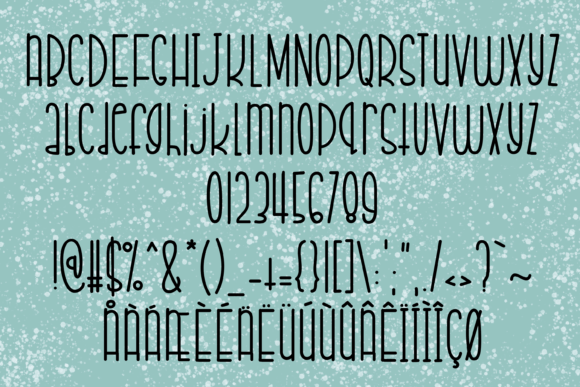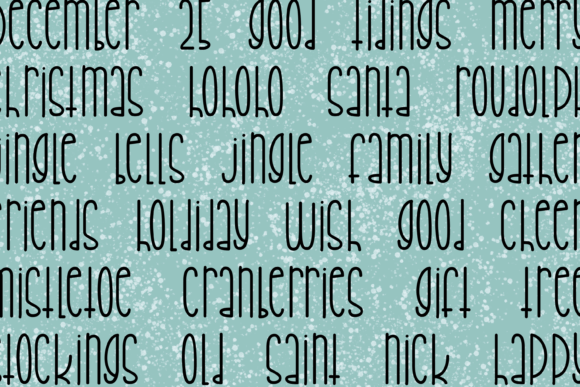
Introducing Chilly Eggnog: The Ultimate Wintery Font for Festive Designs
As the winter season approaches, designers and crafters are on the lookout for fresh and exciting ways to add a touch of holiday cheer to their projects. If you’re tired of using the same old fonts for your holiday cards, winter event invitations, and festive designs, we’ve got some exciting news for you! Say hello to Chilly Eggnog, a playful and refreshing wintery font that’s sure to bring a smile to your face and a dash of whimsy to your creations.
What is Chilly Eggnog Font?
Chilly Eggnog is a unique and quirky font that’s inspired by the classic wintertime treat, eggnog. With its tall letterforms and frosty feel, this font is the perfect addition to any winter-themed project. Whether you’re designing holiday cards, invitations, or social media graphics, Chilly Eggnog is sure to capture the spirit of the season and add a touch of magic to your designs.
Key Features of Chilly Eggnog Font
So, what makes Chilly Eggnog font so special? Here are just a few of its key features:
- Tall Letterforms: Chilly Eggnog’s tall letterforms give it a distinctive and elegant feel that’s perfect for headlines and titles.
- Quirky Style: This font’s quirky style adds a touch of whimsy and playfulness to any design, making it perfect for festive and holiday-themed projects.
- Wintery Feel: Chilly Eggnog’s frosty feel and wintery vibe make it the perfect choice for any project that’s related to snow, ice, or the holiday season.
Perfect for Festive Designs
Chilly Eggnog font is the perfect choice for any festive design project. Here are just a few ideas to get you started:
- Holiday Cards: Add a touch of holiday cheer to your greeting cards with Chilly Eggnog’s playful and festive style.
- Winter Event Invitations: Create eye-catching invitations for your winter events, such as Christmas parties, New Year’s Eve celebrations, or winter weddings.
- Social Media Graphics: Add a dash of whimsy to your social media graphics, such as Facebook posts, Instagram stories, or Twitter headers.
- Winter-themed Packaging: Add a touch of festive flair to your winter-themed packaging, such as holiday gift boxes or snow-themed product labels.
Why Choose Chilly Eggnog Font?
So, why choose Chilly Eggnog font for your next project? Here are just a few reasons:
- Unique and Playful: Chilly Eggnog is a one-of-a-kind font that’s sure to stand out from the crowd and add a touch of playfulness to your designs.
- Easy to Read: Despite its quirky style, Chilly Eggnog is easy to read and understand, making it perfect for body text and headlines.
- Versatile: Chilly Eggnog can be used for a wide range of projects, from digital designs to print materials.
How to Use Chilly Eggnog Font
Using Chilly Eggnog font is easy! Here are just a few tips to get you started:
- Pair it with Other Fonts: Pair Chilly Eggnog with other fonts to create a unique and eye-catching combination.
- Play with Size and Style: Experiment with different font sizes and styles to create a hierarchy of text and add visual interest to your designs.
In conclusion, Chilly Eggnog font is a fun, playful, and refreshing wintery font that’s perfect for adding a touch of holiday cheer to your designs. With its tall letterforms, quirky style, and wintery feel, this font is sure to capture the spirit of the season and bring a dash of whimsy to any project. So why wait? Download Chilly Eggnog font today and start creating your own festive designs!